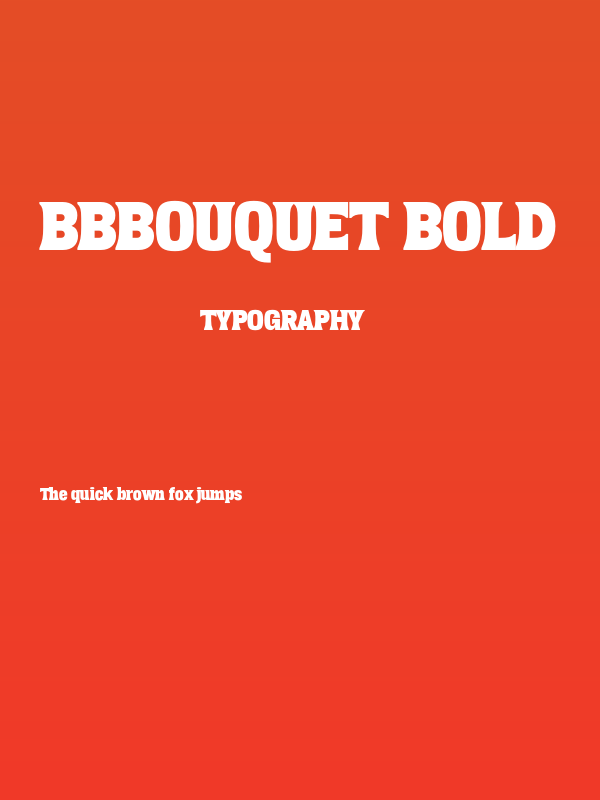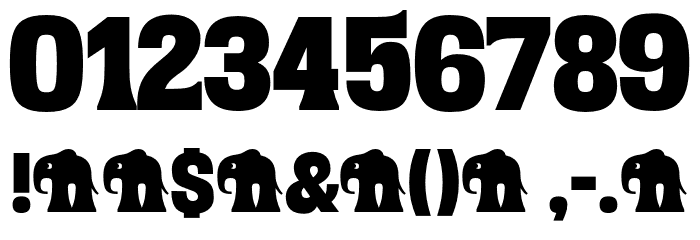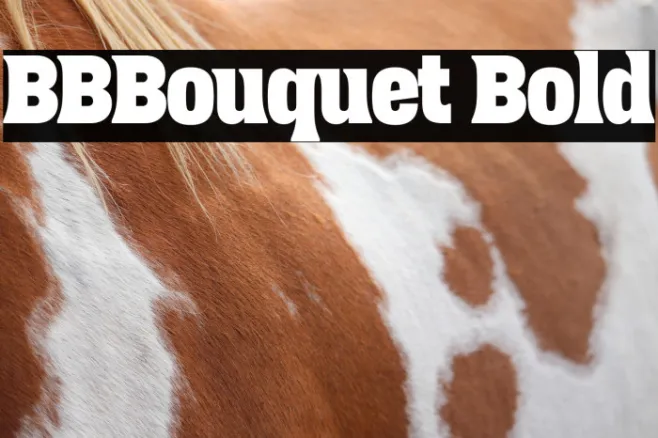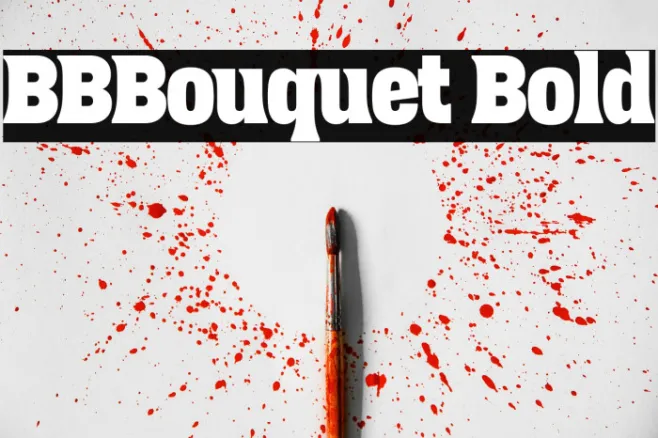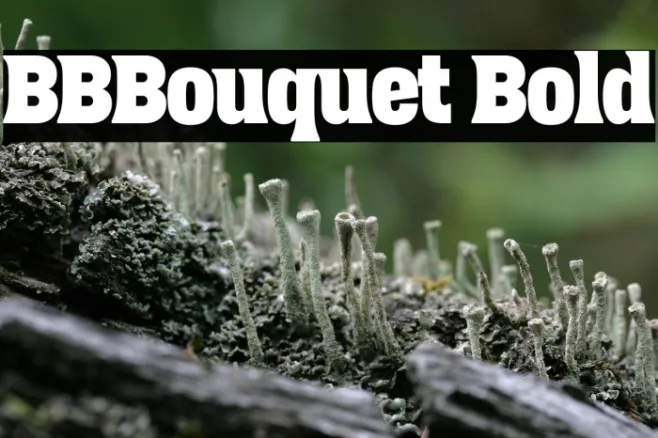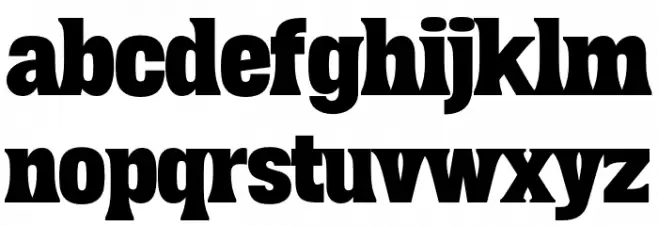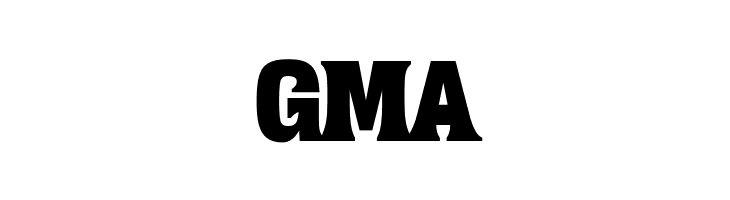
BBBouquet Bold Font
BBBouquet Bold Description
This bold and striking font features thick, heavy strokes with a strong presence, making it ideal for attention-grabbing designs. The characters are robust and slightly condensed, with a playful yet powerful aesthetic. The uppercase letters are particularly dominant, while the lowercase letters maintain a consistent weight and style. The numerals are equally bold, ensuring they stand out in any context. Special characters are uniquely styled, adding a decorative touch to the overall design. This font is perfect for projects that require a bold statement, such as posters, headlines, and branding materials.
| Proposed Projects | Ideal for posters, headlines, branding, and any design requiring a bold statement. |